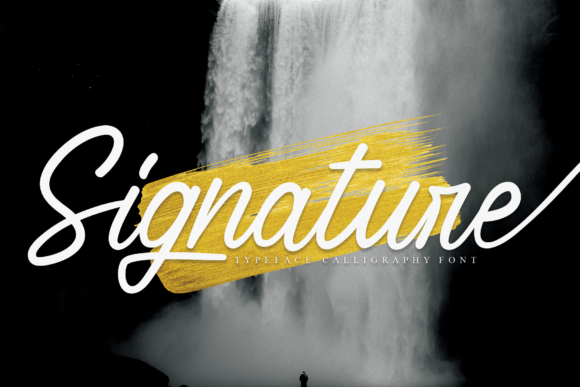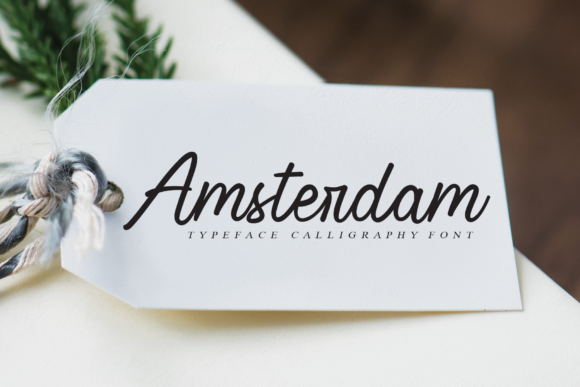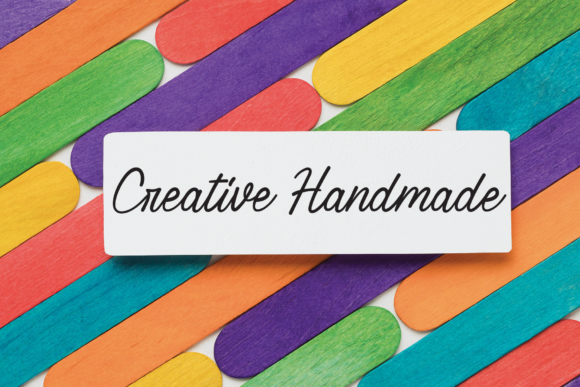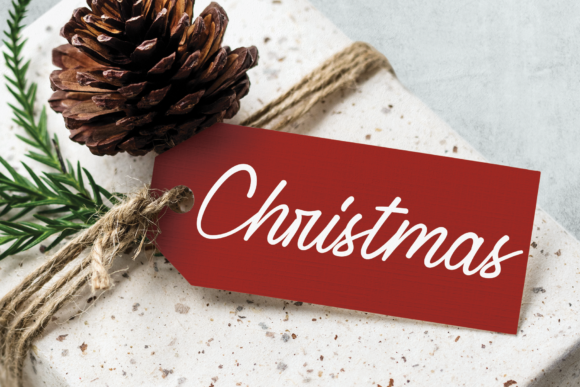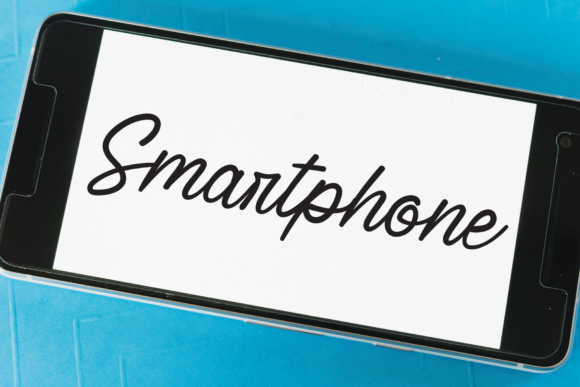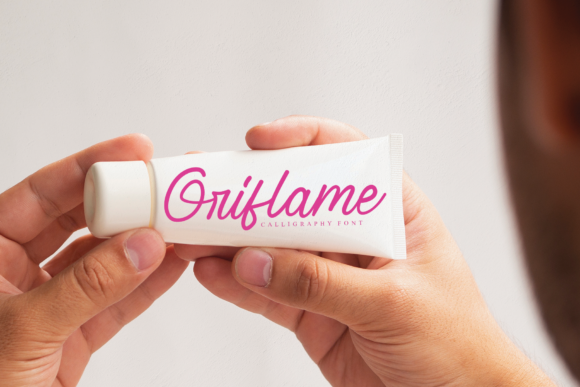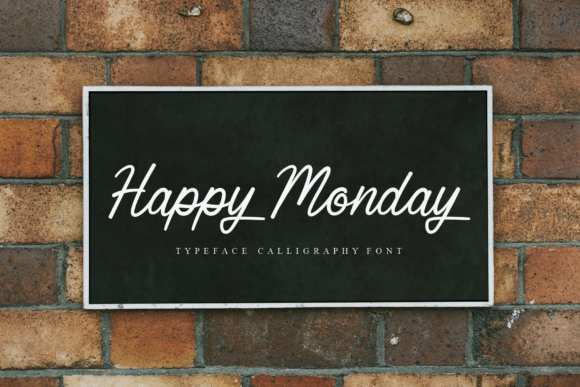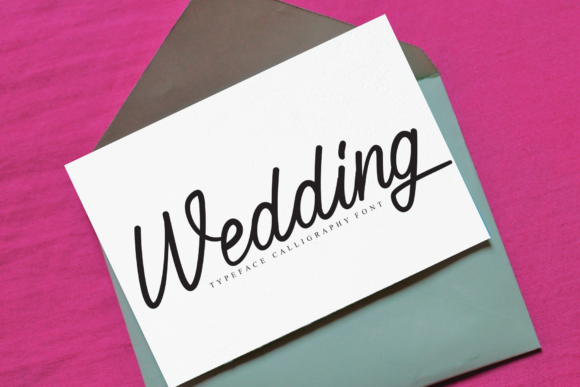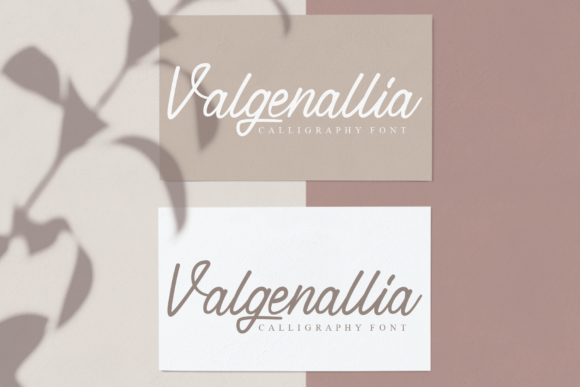
Signature is a classic handwritten font. This font is perfect for wall displays, wedding invitations, social media post logos, advertisements, product packaging, product designs, labels, photography, watermarks, invitations, stationery and any project that requires a handwritten taste.